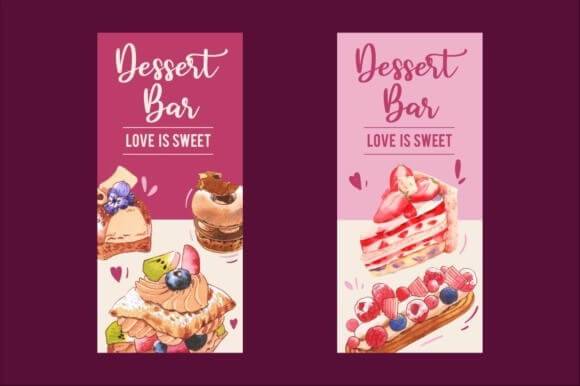
Feather Modern Script Font
The exquisite new Feather Script and Calligraphy Fonts is now available! This typeface was made for those of you who require a touch of elegance and modernism in your designs! Feather comprises beginning and ending swashes, alternate swash characters for most lowercase letters, digits, punctuation, alternates, ligatures, and foreign languages. Feather includes TTF and OTF formats, as well as multilingual support. The typeface is PUA Encoded, which means it can be used without the use of any additional design program.
The typeface has an elegant modern style with an organic smooth wet ink texture. This is ideal for branding, logos, invitations, master heads, and other similar projects. The typeface is also a great choice for wedding cards, as it looks fantastic. This typeface can also be used on the front of greeting cards. It offers practically any project a pleasing appearance.
| Name | Feather Modern Script Font |
| Style | Script, Calligraphy |
| Designer | sans and sons |